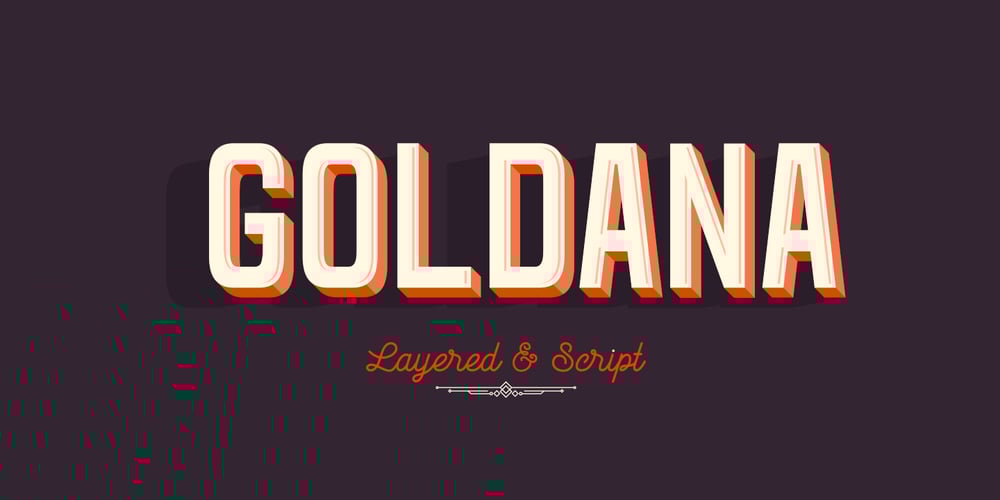
Goldana
Goldana font
Goldana Font Family was designed by Cucu Supriyadi and published by Seventh Imperium. Goldana contains 24 styles and family package options. Goldana is a display layered font inspired by art deco. The base layer is regular; add an extrude and extrude shadow to create a dimensional look. Several of the styles can be mixed and matched together to create different style details. There are several fonts with a stand-alone style and script. The Script fonts are also equipped with OpenType features. (The shadow, drop stripe and stencil styles are not meant to be layered.) Play with the extras collection to create badges with a vintage feel and an art deco style.